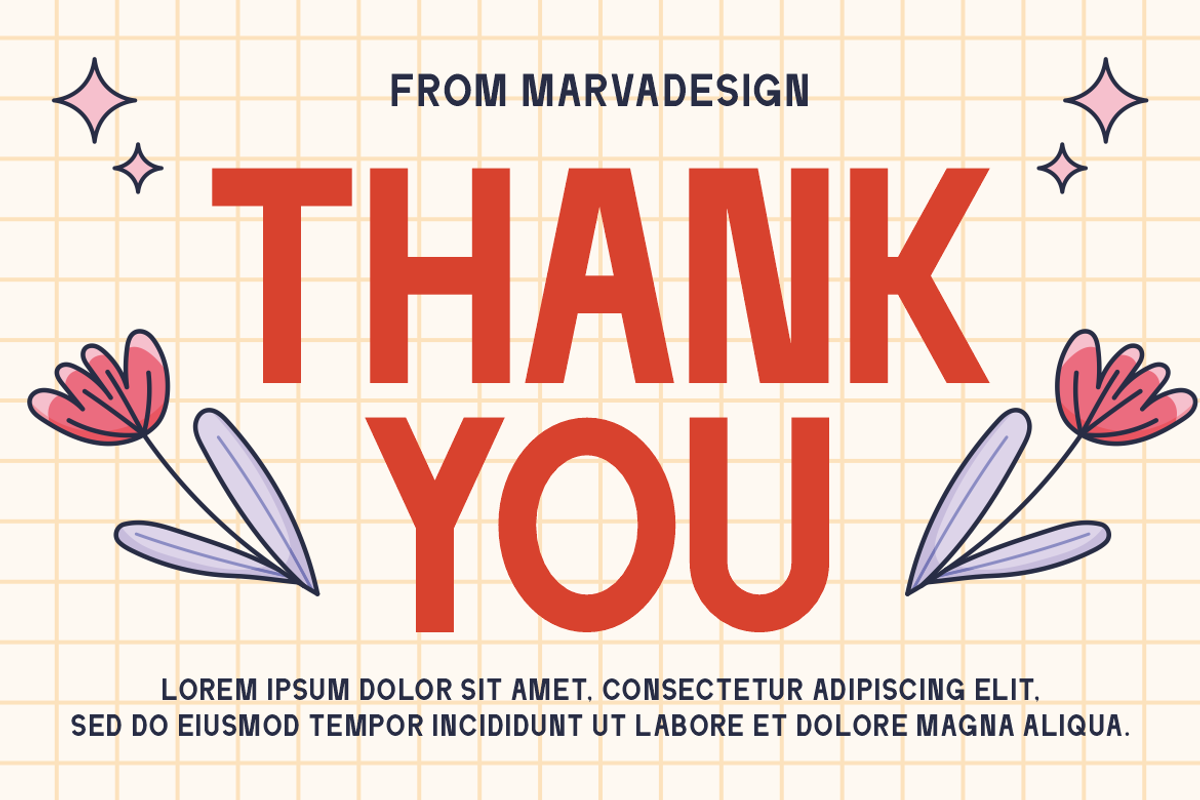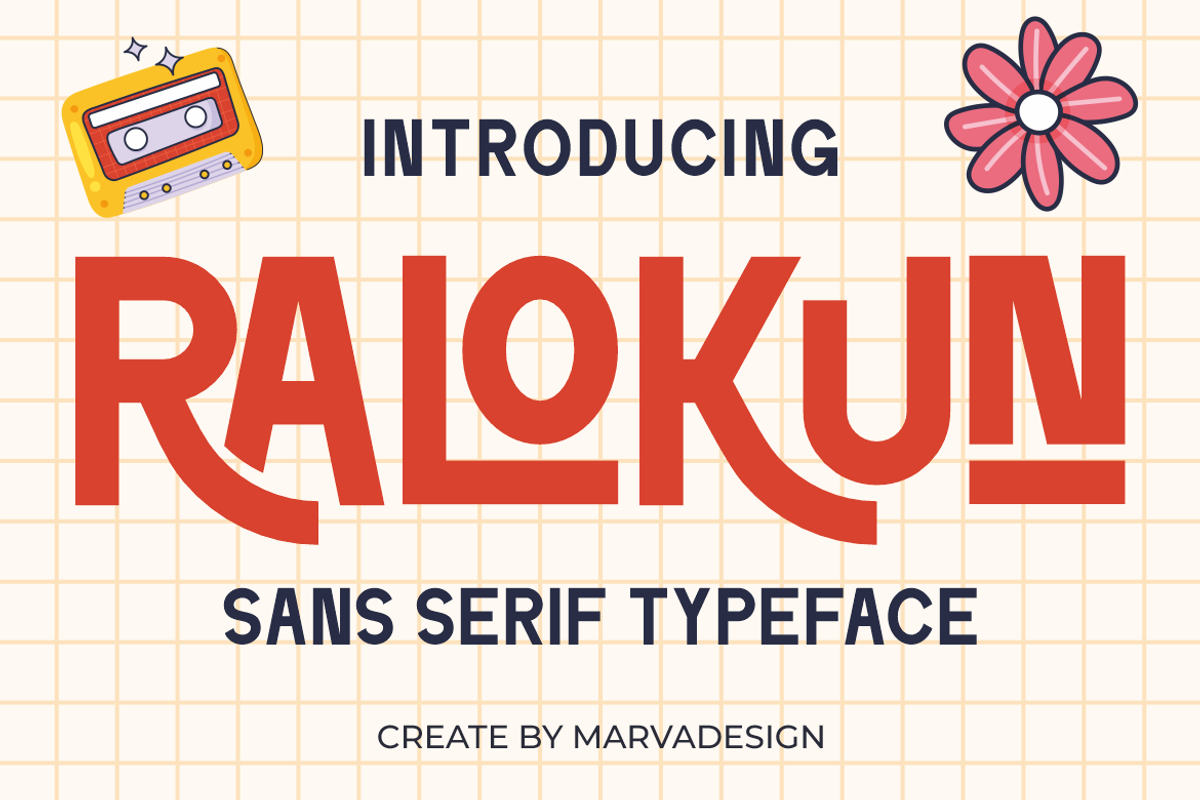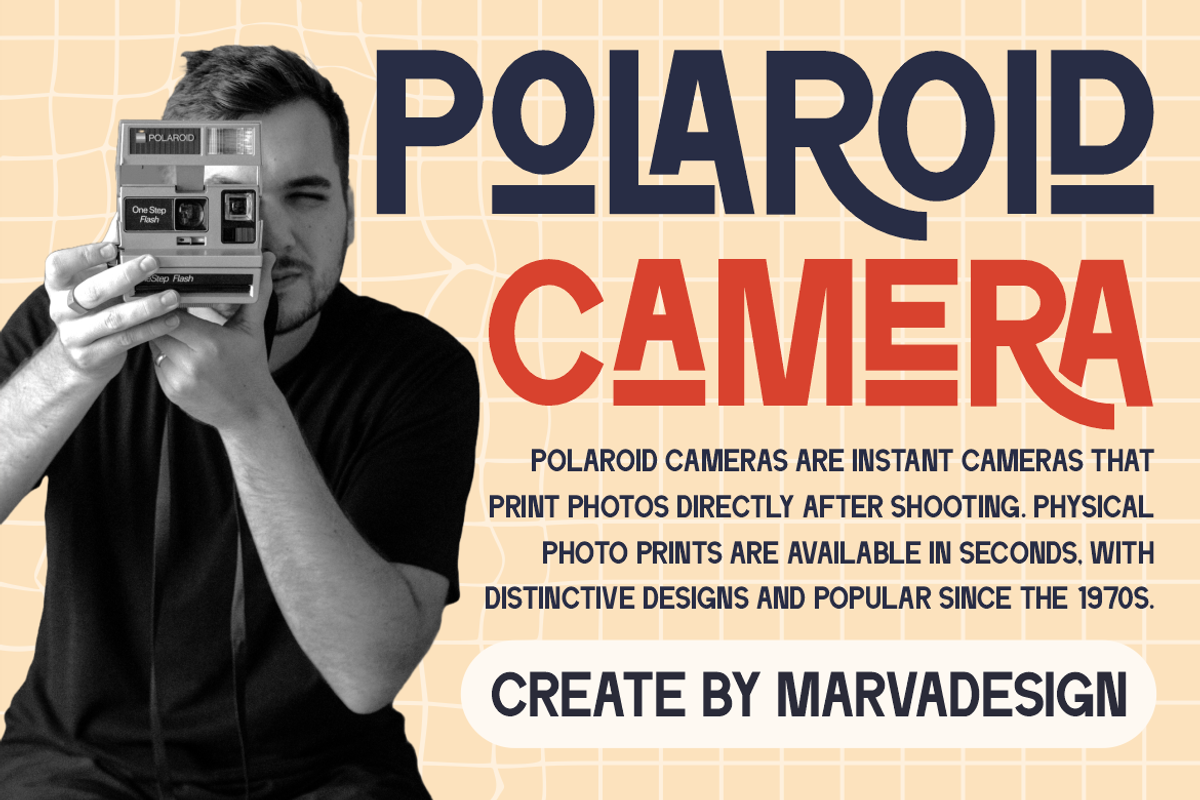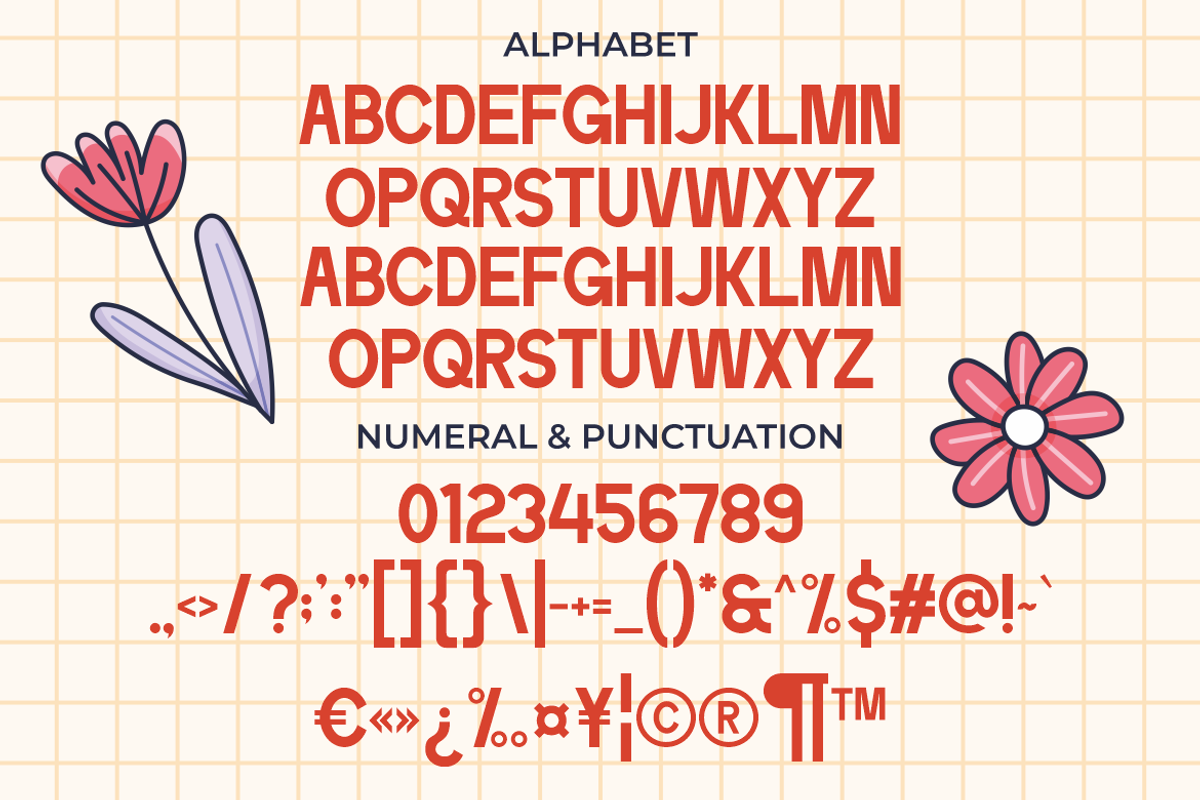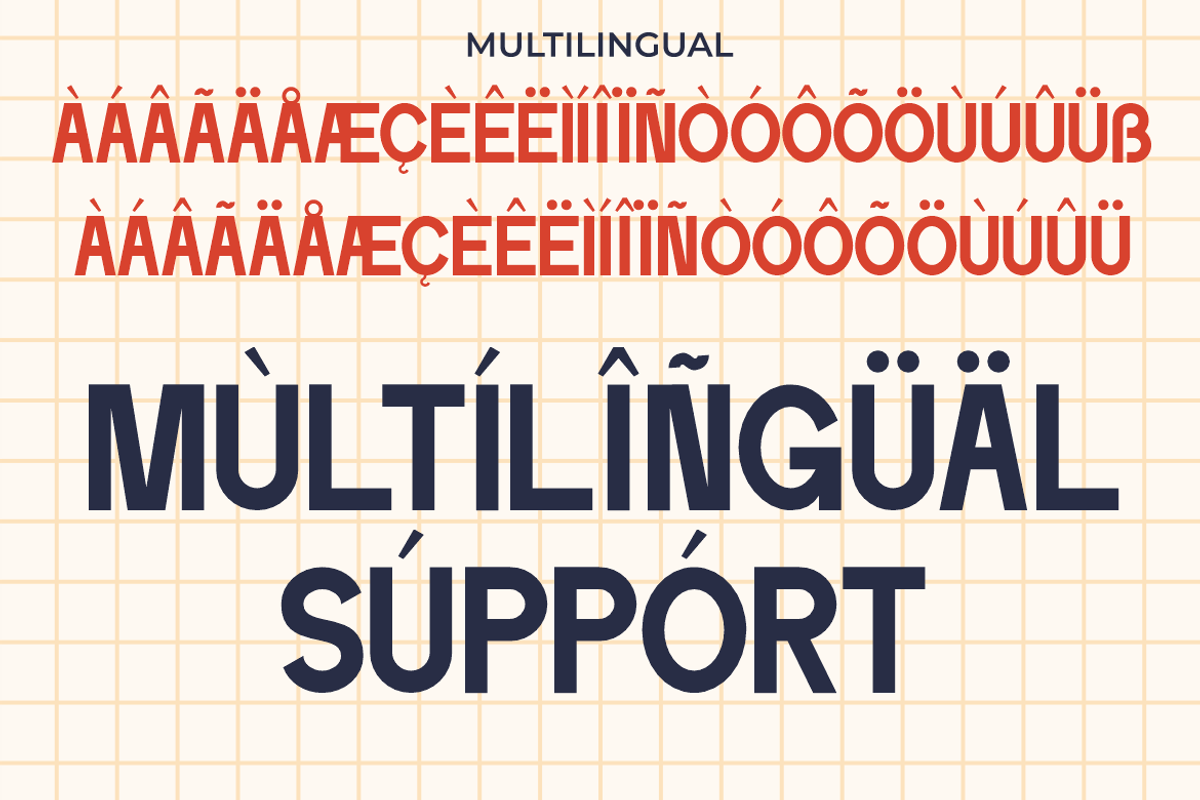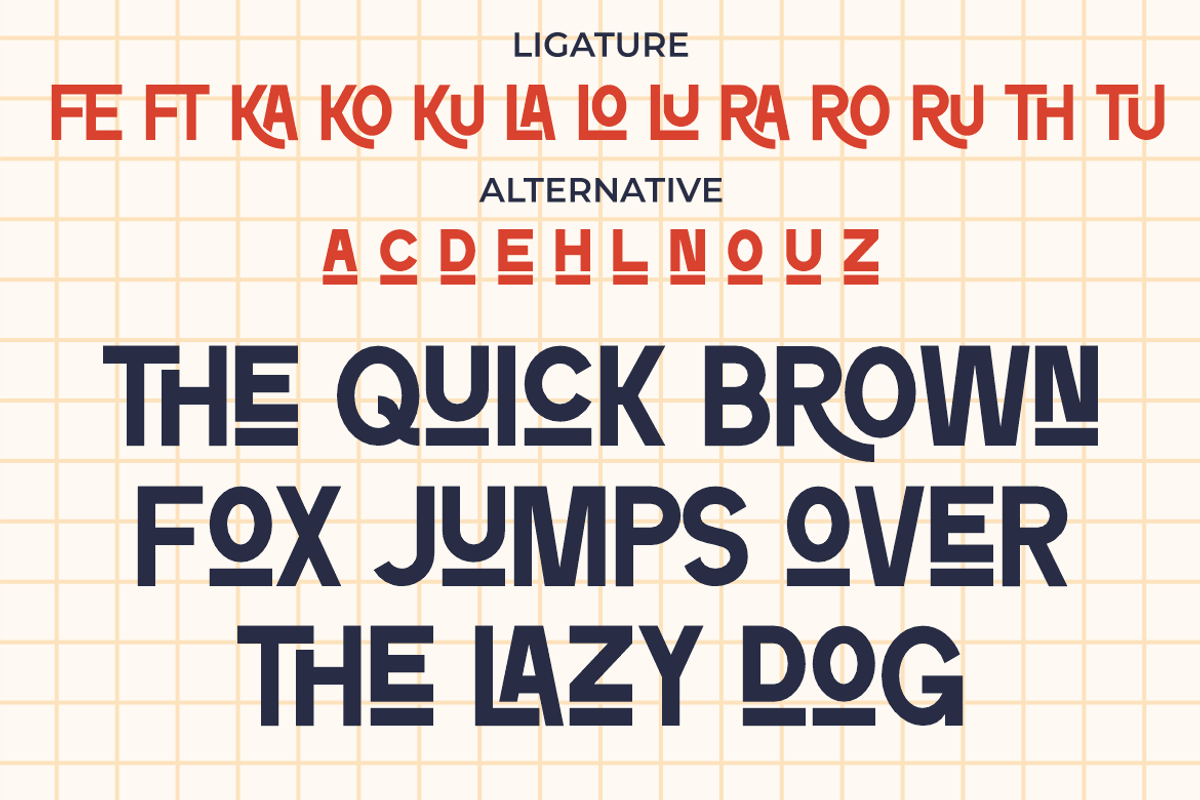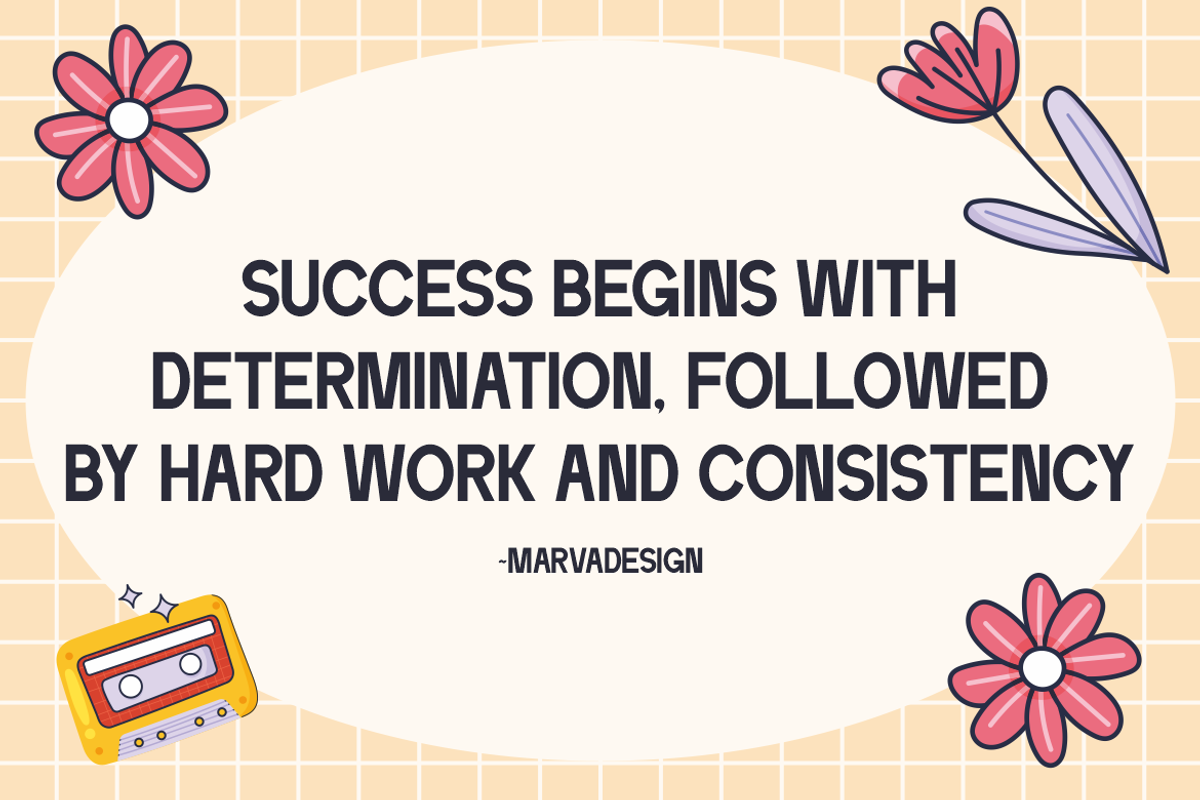
Ralokun - Retro Sans Serif Font
Introducing Ralokun font is a modern and playful sans-serif typeface that combines bold, geometric shapes with subtle retro influences. Characterized by its strong, clean lines and distinctive letter alternates, this typeface exudes a sense of creativity and versatility. The inclusion of unique ligatures and stylistic alternates adds a dynamic touch, making it ideal for branding, editorial design, and advertising materials. Its structured yet fluid design ensures excellent readability while maintaining a strong visual impact. The slightly curved and exaggerated letterforms introduce a playful, nostalgic element reminiscent of vintage signage and mid-century aesthetics. Additionally, the typeface supports a full range of numerals, punctuation, and symbols, making it suitable for various design applications. Ralokun is best suited for projects that require a balance of modernity and personality, such as logos, posters, packaging, and digital content. With its bold statement and versatile usability, this font serves as an excellent choice for designers looking to infuse their work with a mix of contemporary style and classic charm.